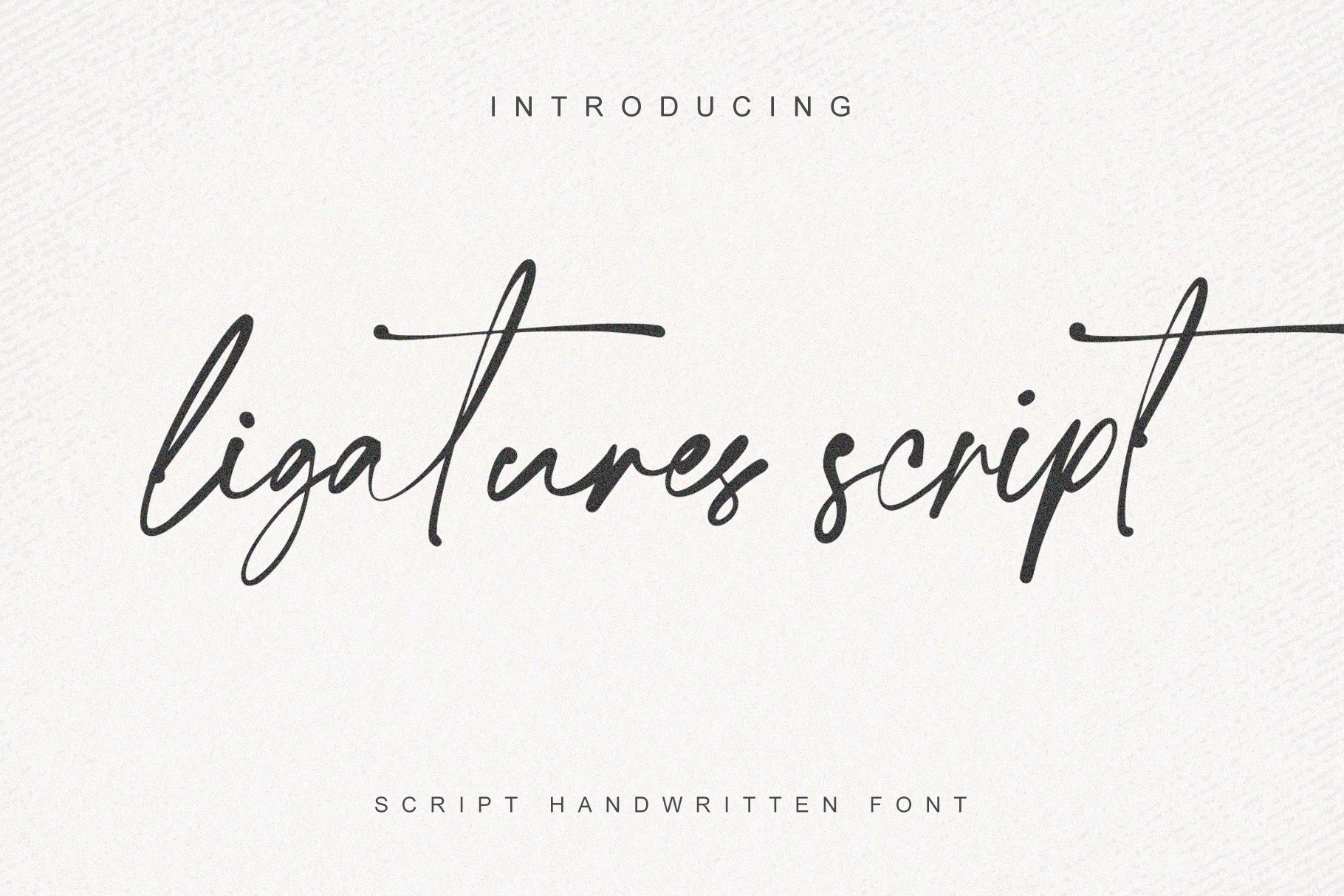
ligatures script is a handwritten script font with a Gel pen and natural style, this font is great for your next creative projects such as watermark on photography, quotes, album cover, logo, business card, and many other design project.
ligatures script comes with uppercase letters, lowercase letters, alternate lowercase letter, numbers and punctuation